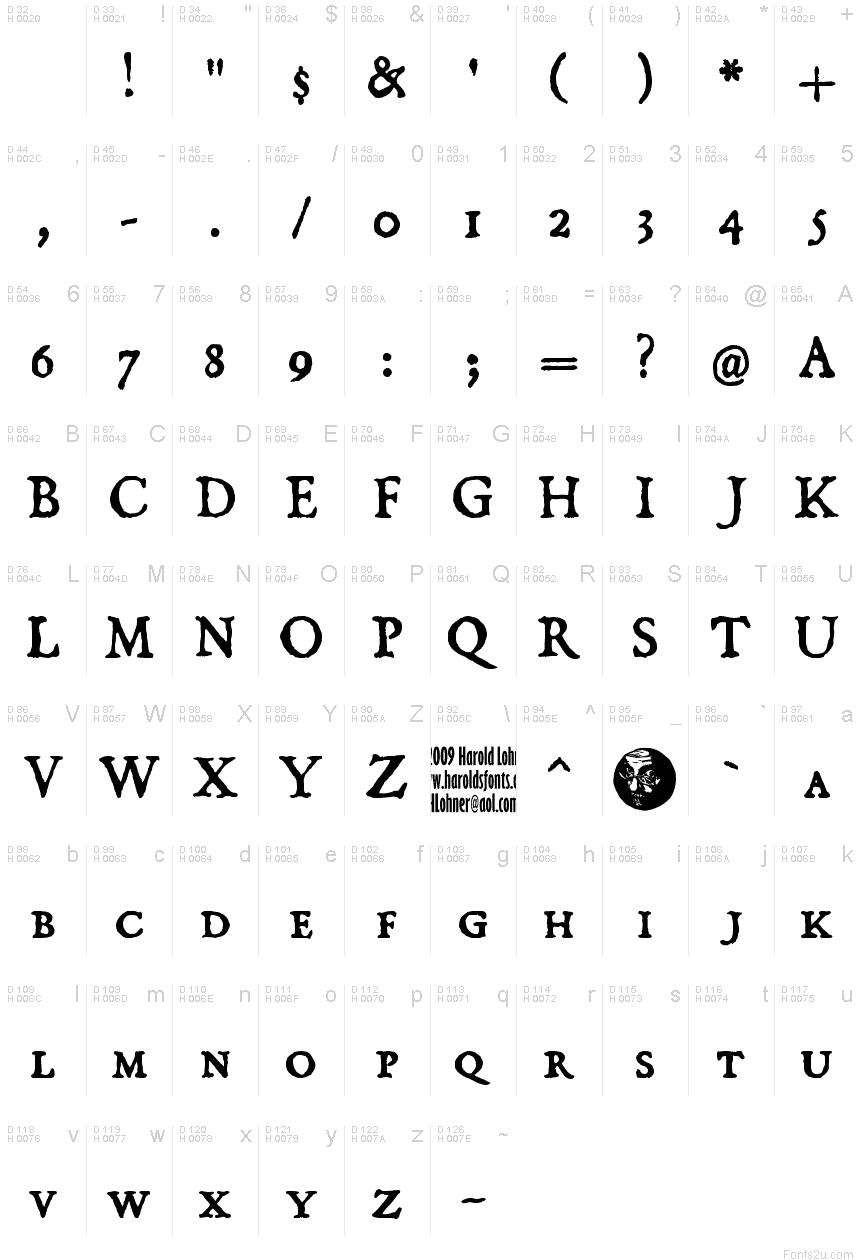
Dominican Small Caps
Dominican Small Caps font by Harold Lohner brings a rough-hewn, ink-stamped look that feels pulled from an old press and worn at the edges. The letters have chunky, uneven contours and a dry, eroded texture that reads bold even when you keep the wording short. It is a free distressed serif font, with a rugged presence that adds instant age and attitude.
Using Dominican Small Caps, you’ll get strong results on posters, album art, horror or pulp-inspired covers, vintage-style packaging, craft beer labels, film title cards, event flyers, and game logos. This free font shines when you give it breathing room and let the texture show. Try pairing it with a clean grotesk sans for credits or body copy to keep the grit focused in the headline.